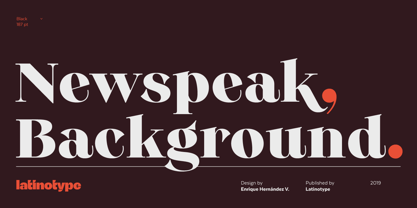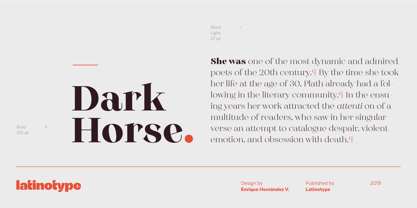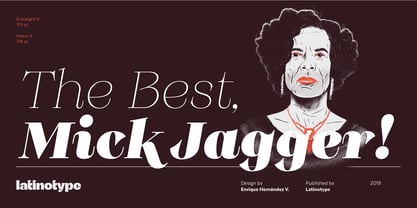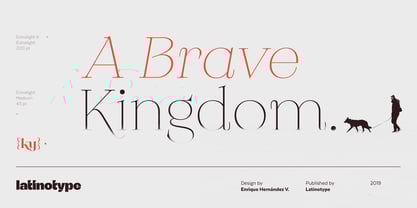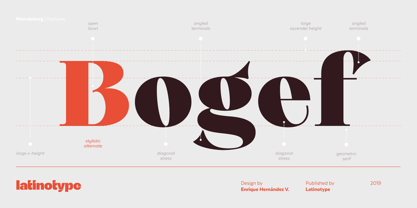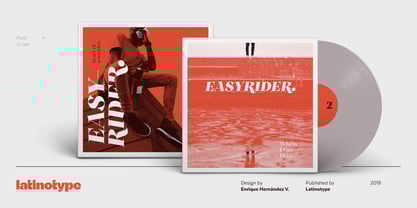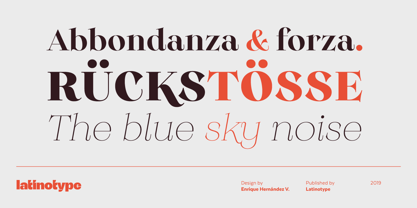
Monckeberg Font
Monckeberg Font is perfect for branding, website headings, editorial layouts, social media graphics, and poster designs. Its clean, modern, and versatile design makes it ideal for a wide range of creative projects.
What makes Monckeberg Font exciting is its geometric, well-proportioned letterforms that combine readability with a contemporary, stylish aesthetic. The font’s balanced design ensures your text stands out with clarity and sophistication.
The Monckeberg Font family includes Regular, Bold, Italic, and Light variations, providing designers flexibility to create cohesive and visually compelling typographic compositions.